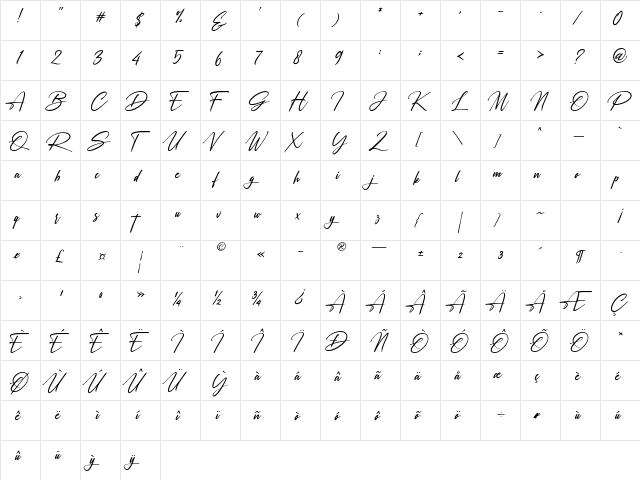
Rosellinda Alyamore Regular
| Foundry | Hanzel Graphic |
| Designer | hanief farandi |
Design Context for Rosellinda Alyamore Typeface
Rosellinda Alyamore is a composed and adaptable typeface that performs quietly and consistently across a wide range of design contexts.